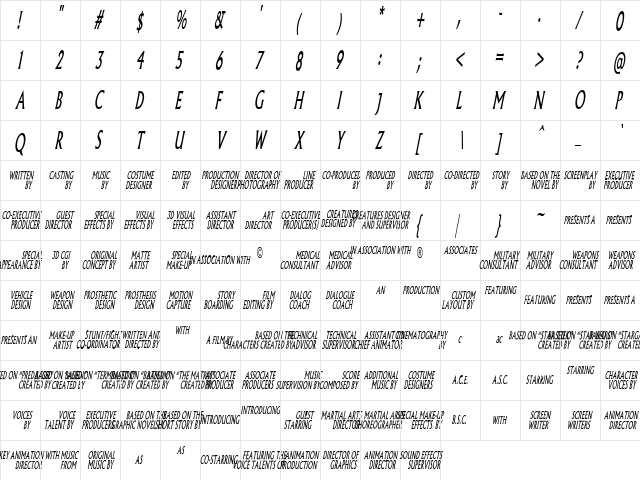
Pliskin Snake-Eyes-Italic
| Foundry | TracerTong |
Design Context for Pliskin Typeface
Pliskin offers clean, dependable letterforms without strong stylistic allegiance, making it a practical choice for designers who need flexibility. The slanted form adds forward momentum and visual energy.